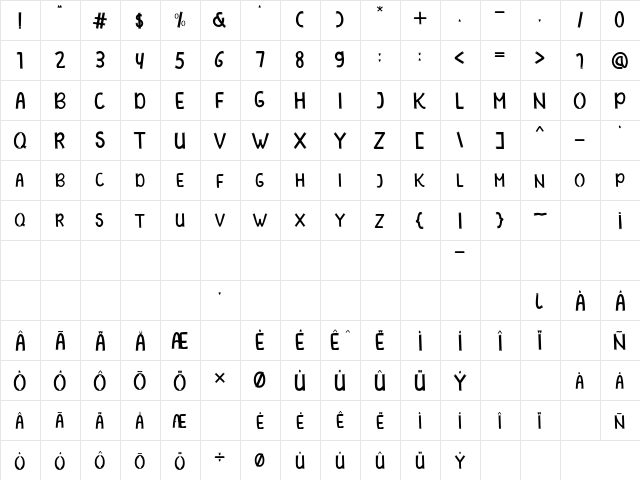
HELLO CROCODILO Regular
| Foundry | Alfinart |
| Designer | Alfin Ridhowi |
Design Context for HELLO CROCODILO Typeface
HELLO CROCODILO takes a measured approach to typography — its balanced proportions and neutral character make it a reliable workhorse for both digital and print work.